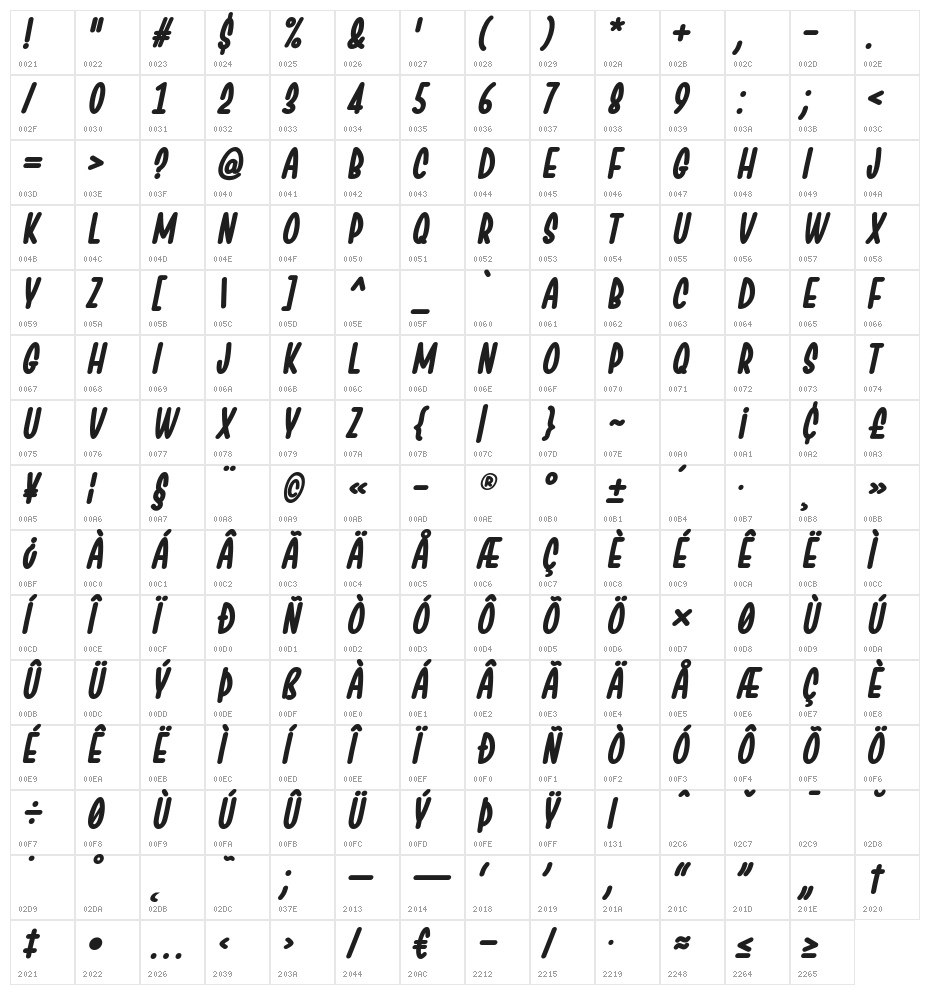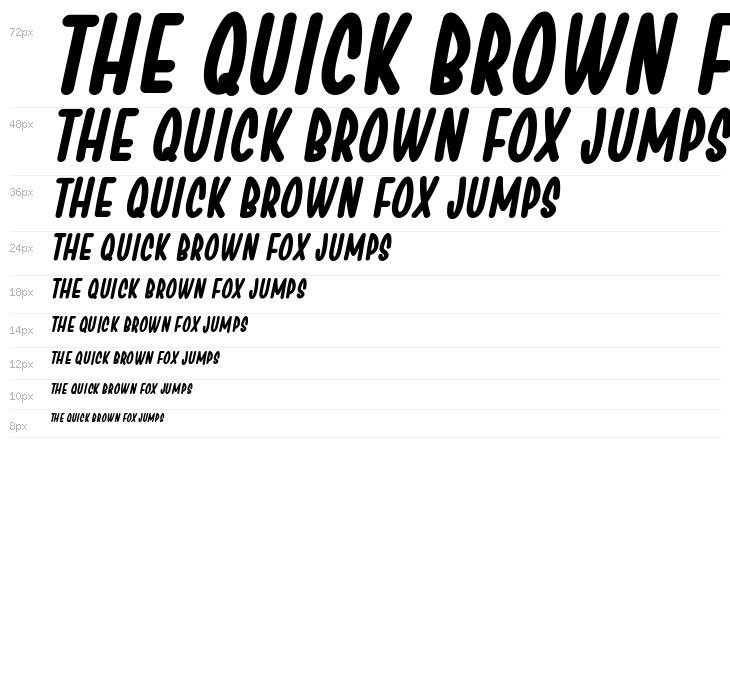
Chesan Bold Italic Font
Chesan Bold Italic Description
This font features a bold and italicized style with a strong, dynamic presence. The characters are rounded and slightly slanted, giving them a sense of movement and energy. The strokes are thick and consistent, providing a bold appearance that stands out. The uppercase and lowercase letters maintain a uniform style, with smooth curves and a playful yet assertive look. The numbers and special characters follow the same design principles, ensuring a cohesive appearance across all elements. This font is ideal for projects that require a bold statement and a touch of personality.
| Proposed Projects | Ideal for branding, advertising, posters, and headlines that need a strong, energetic impact. |